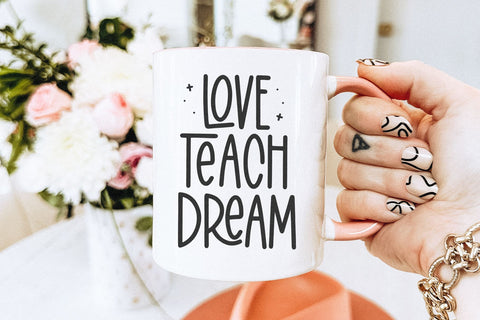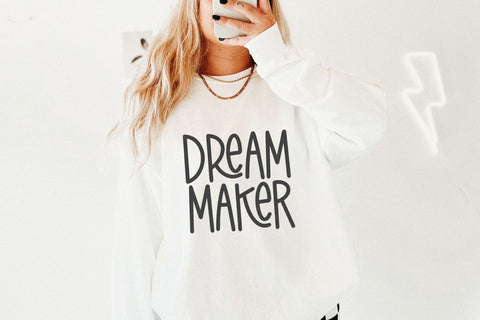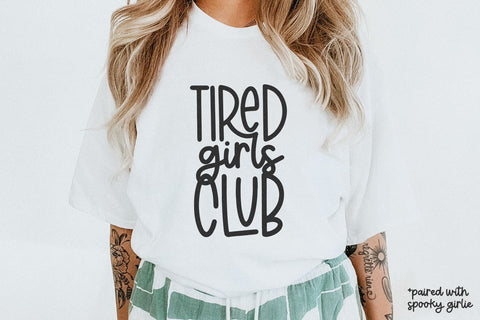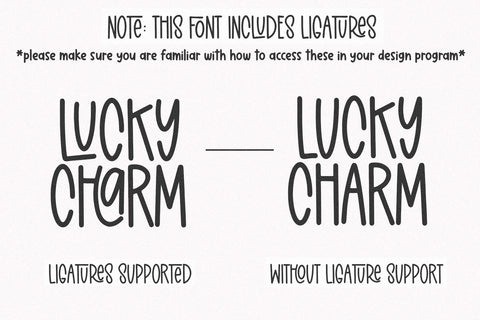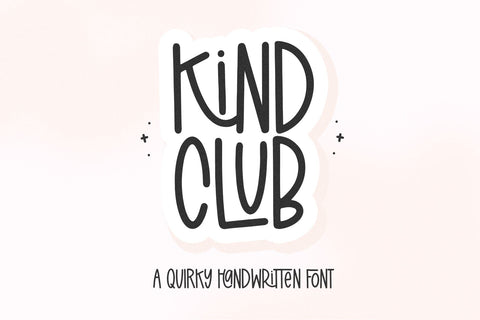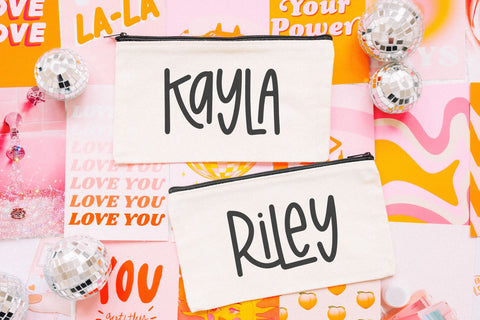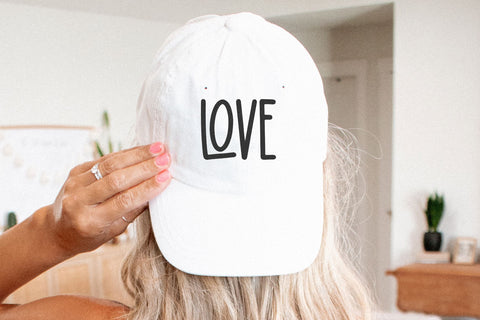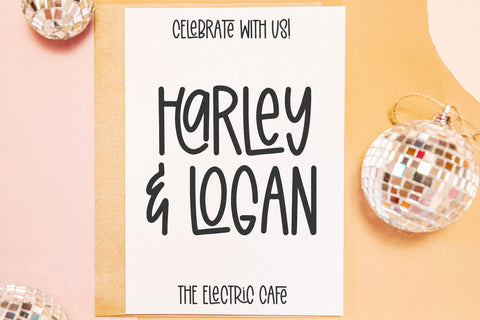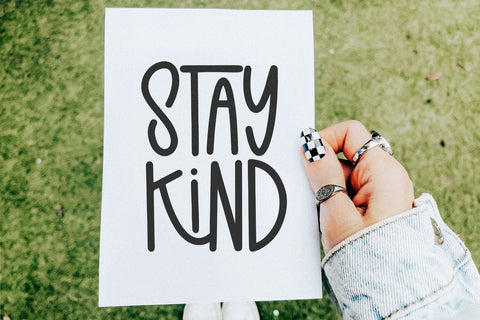
Kind Club - Cute Handwritten Font
Kind Club is a cute handwritten font.
This font includes ligatures, which gives it a fun and quirky look - please be familiar with how to access these in your design program.
Kind Club is perfect for cricut projects, stickers, shirts, logos, quotes, teachers, social media, canva and more!